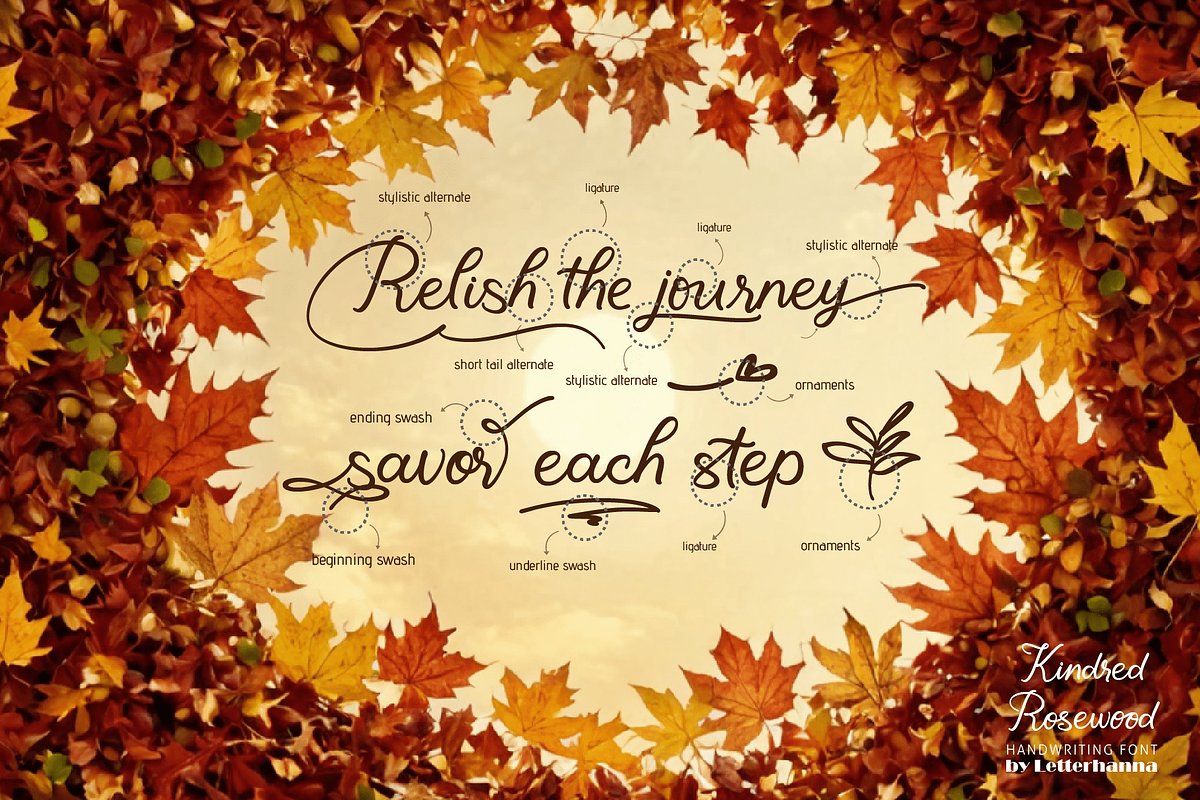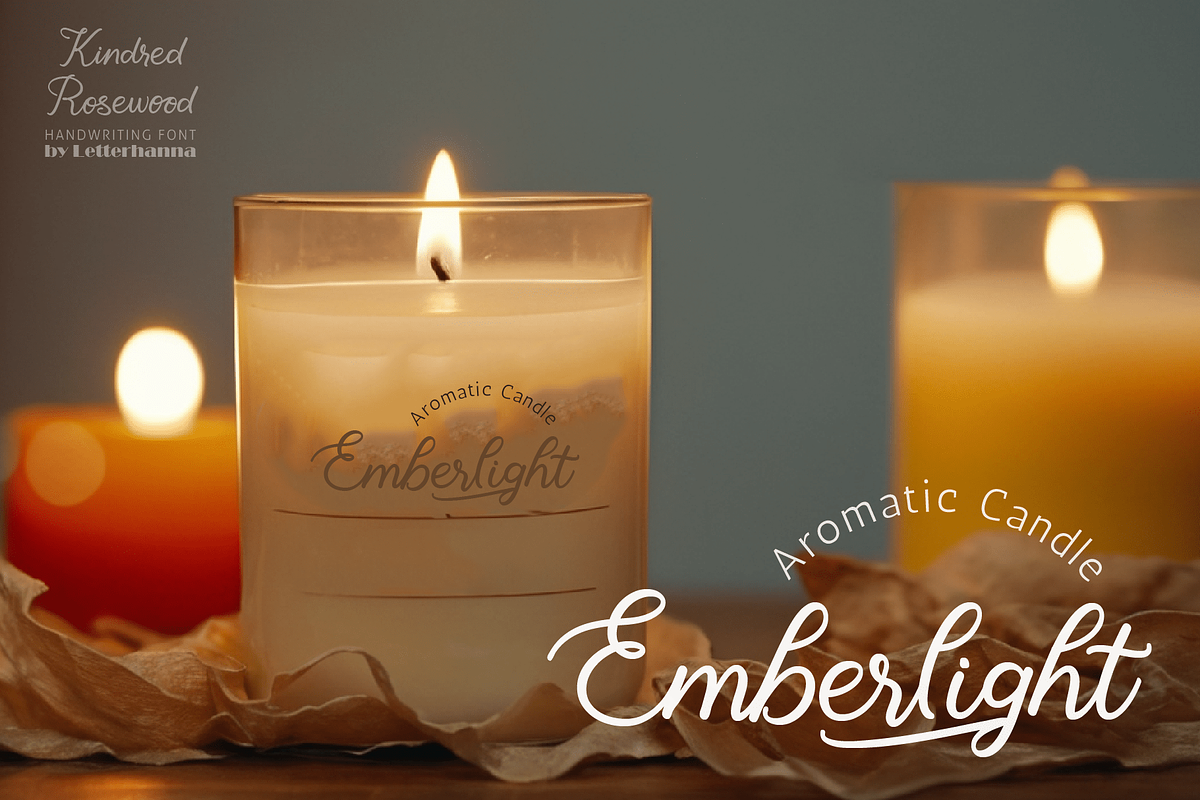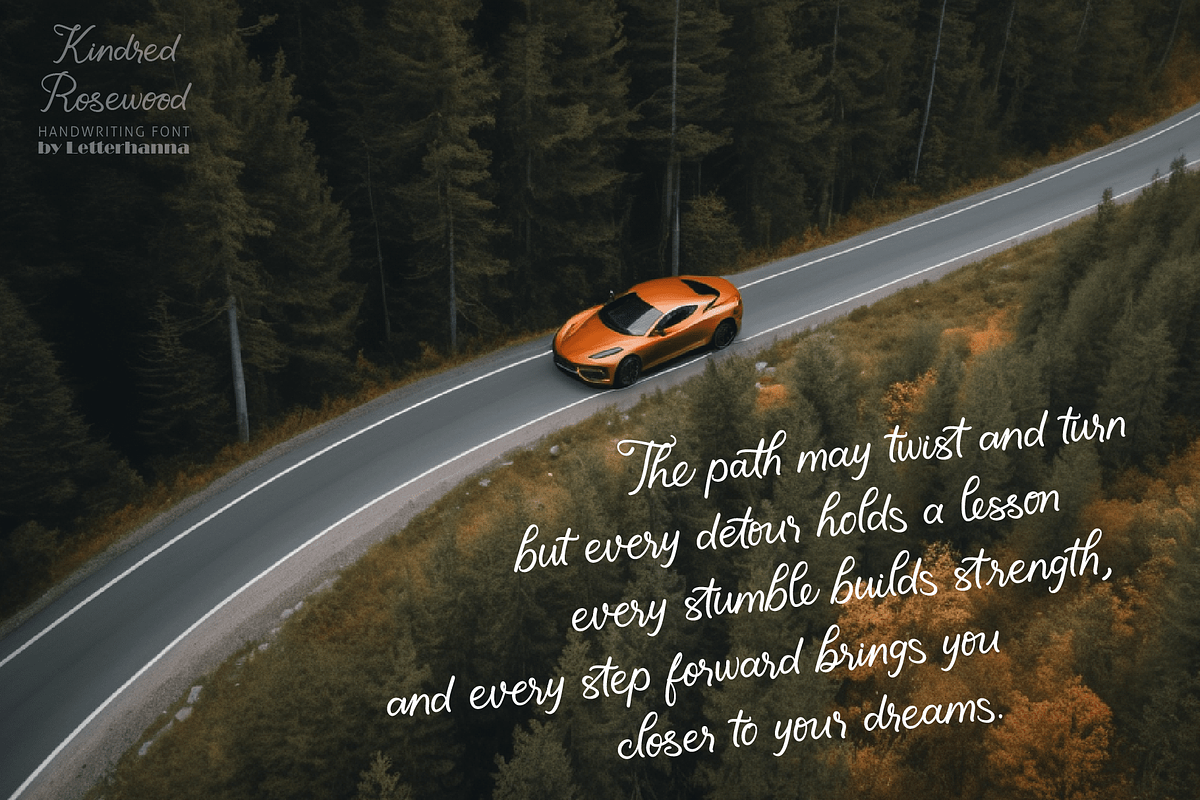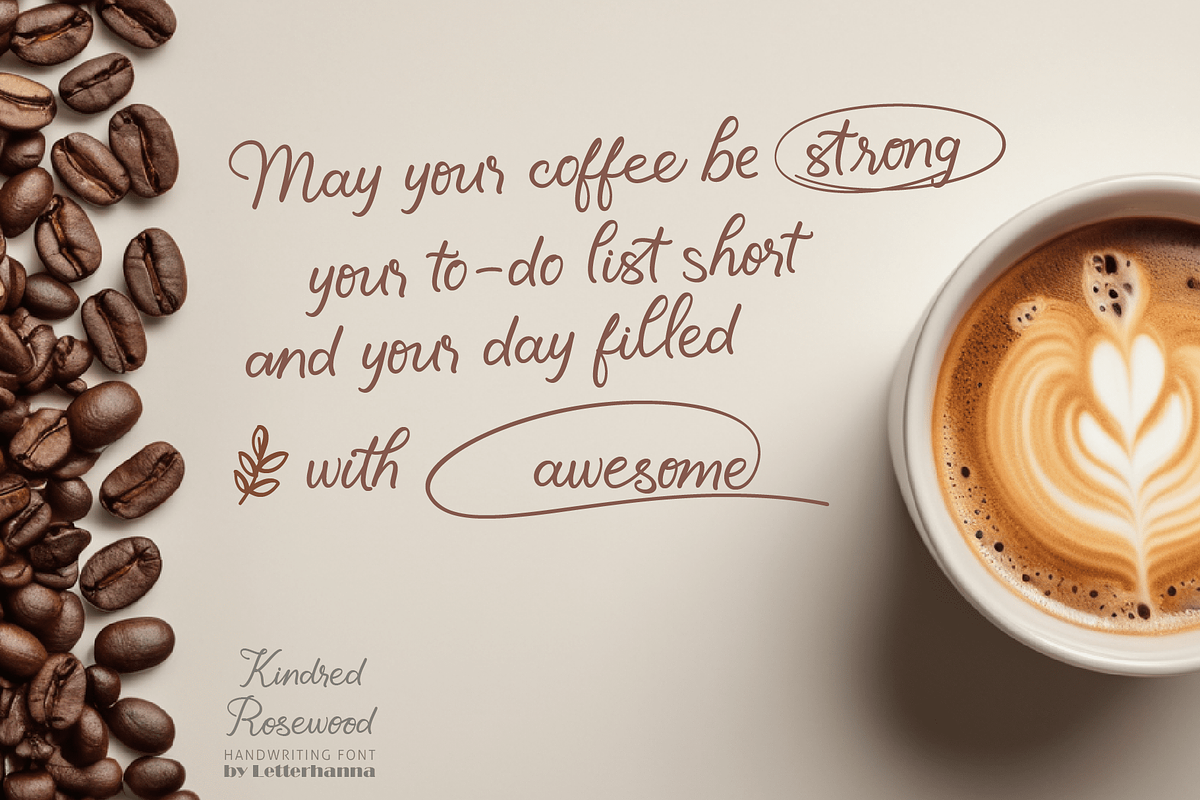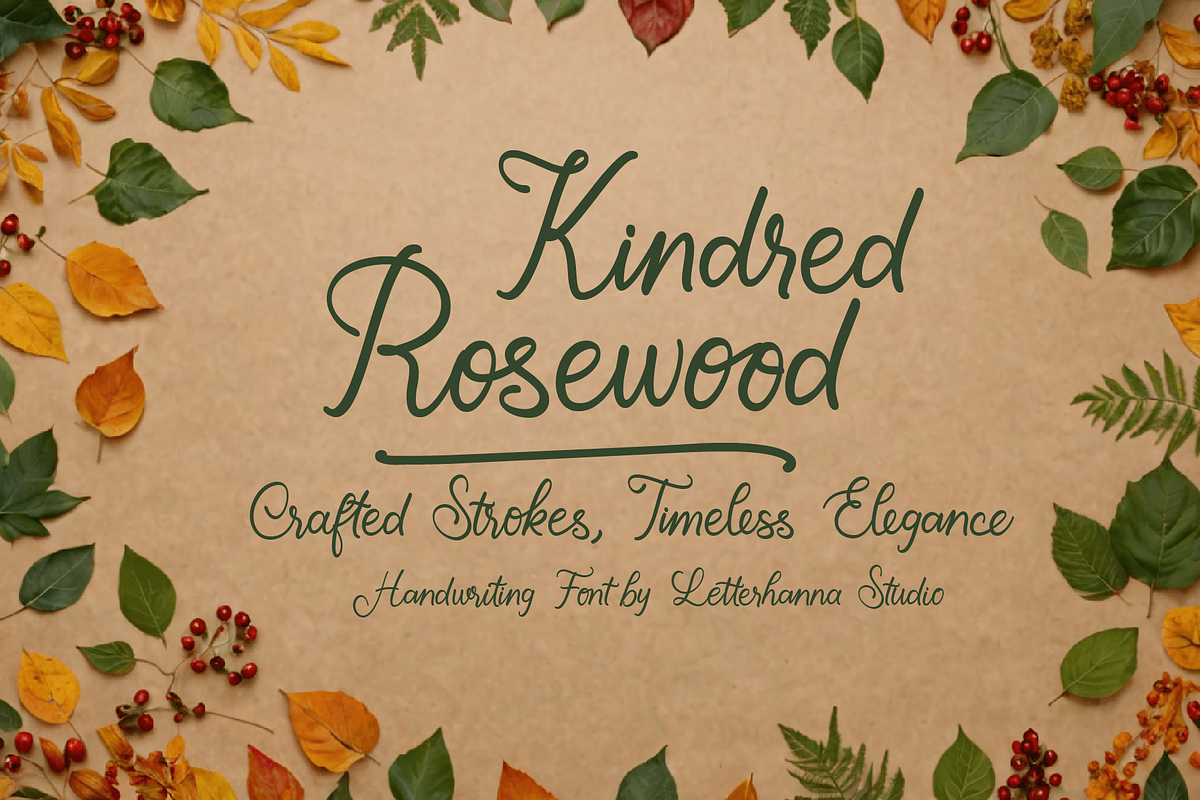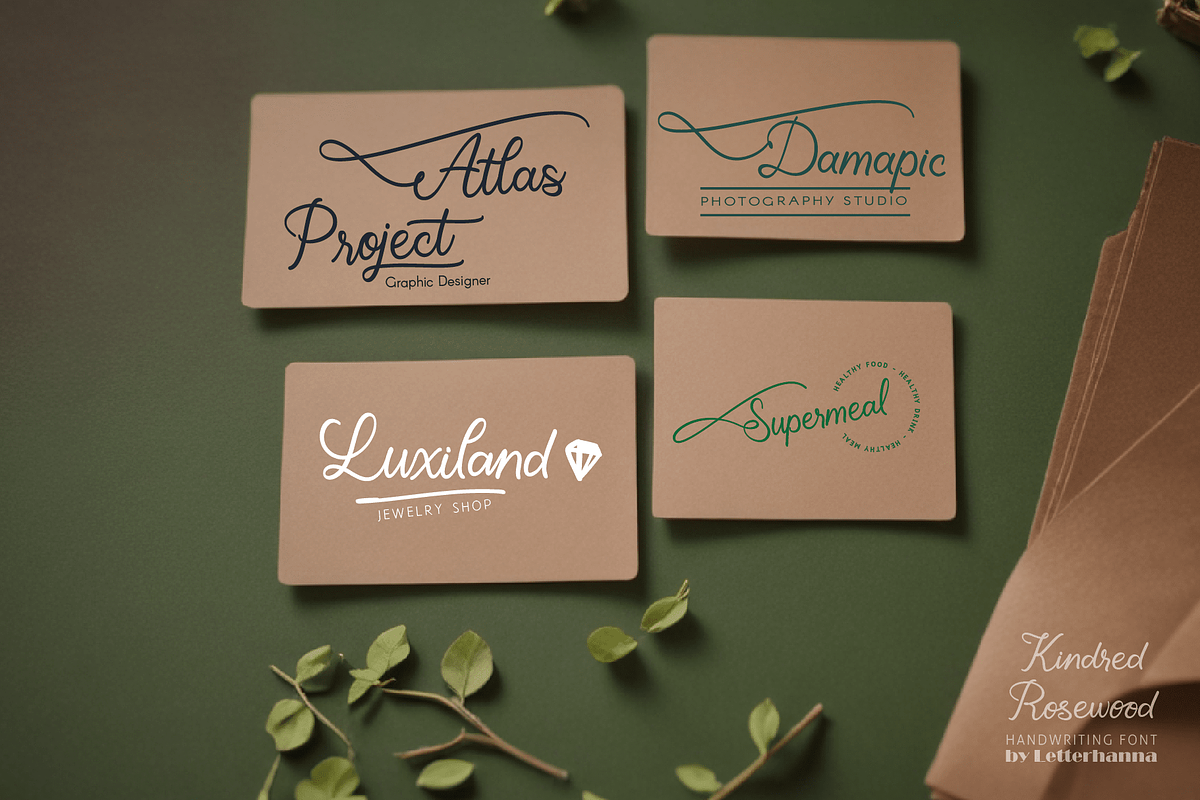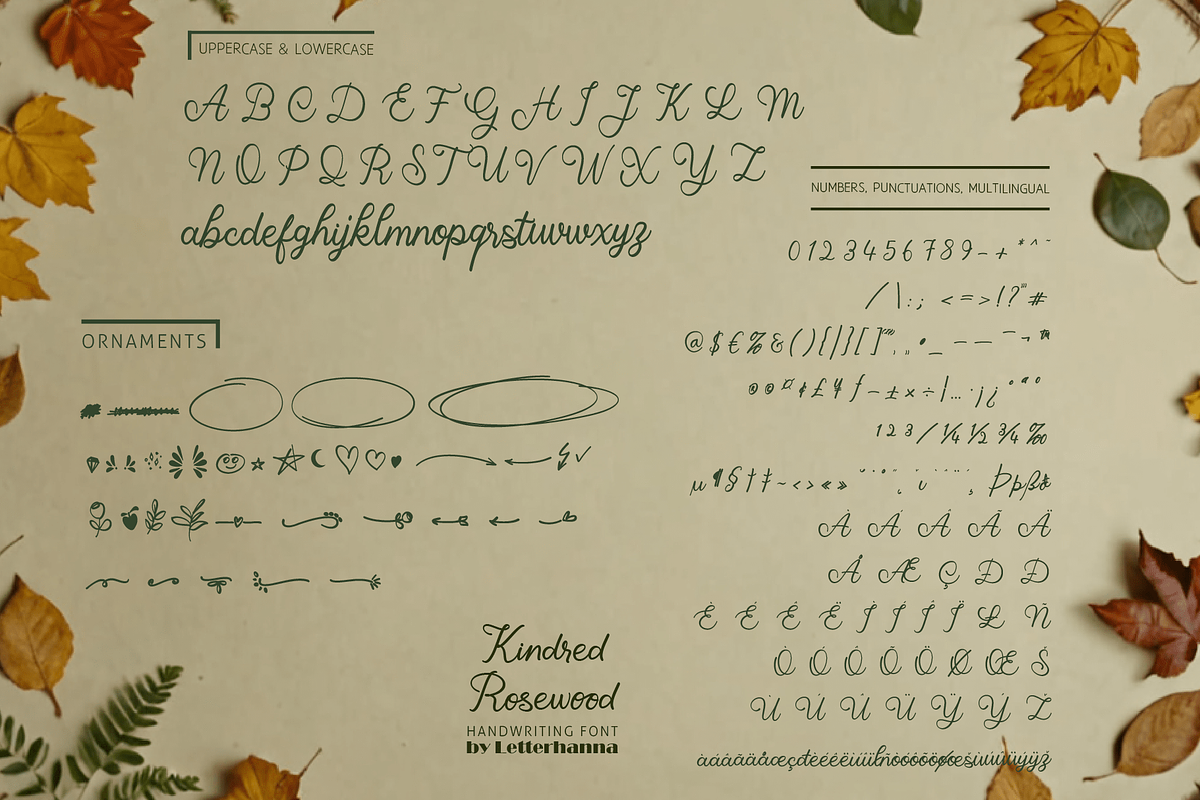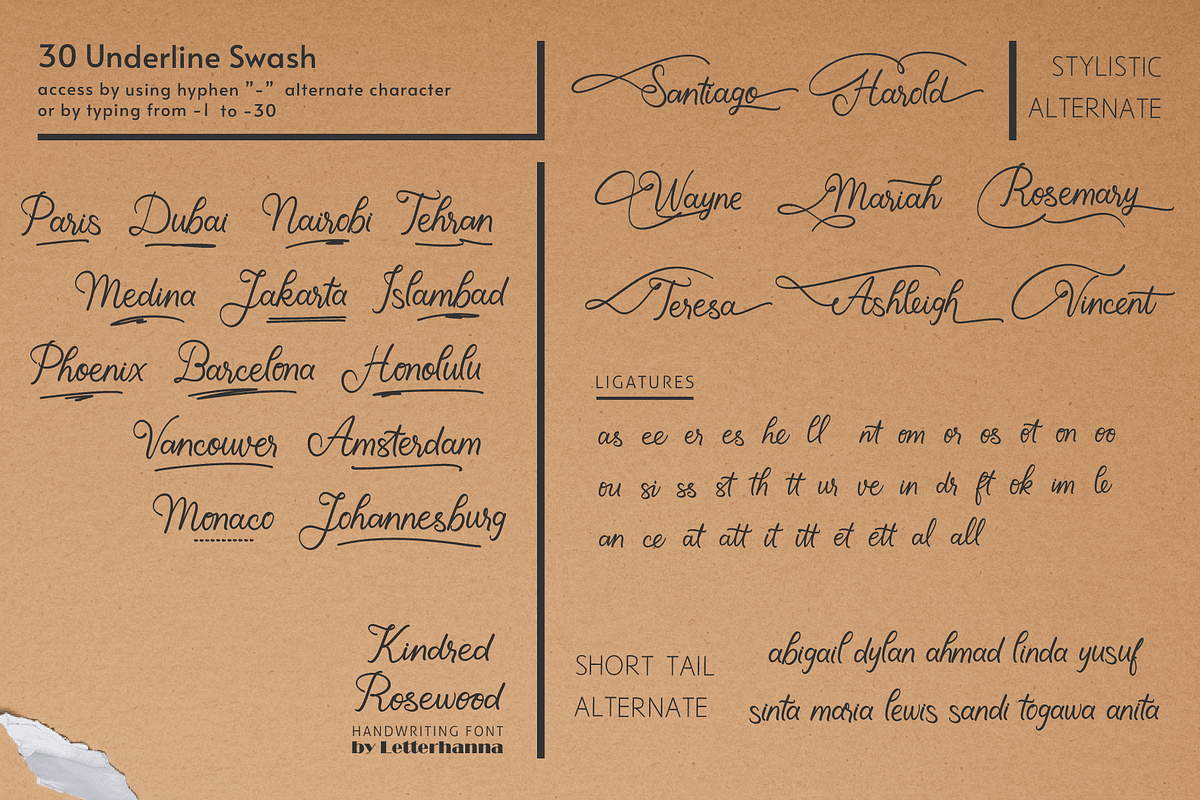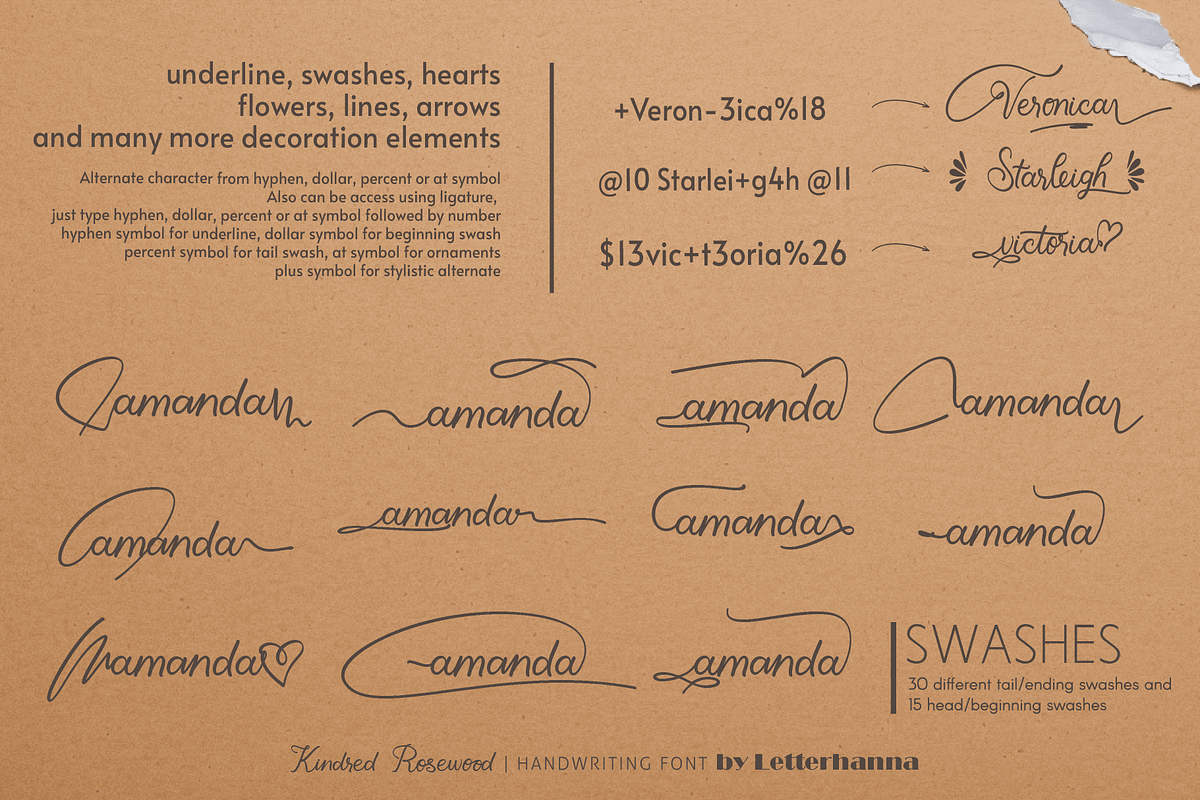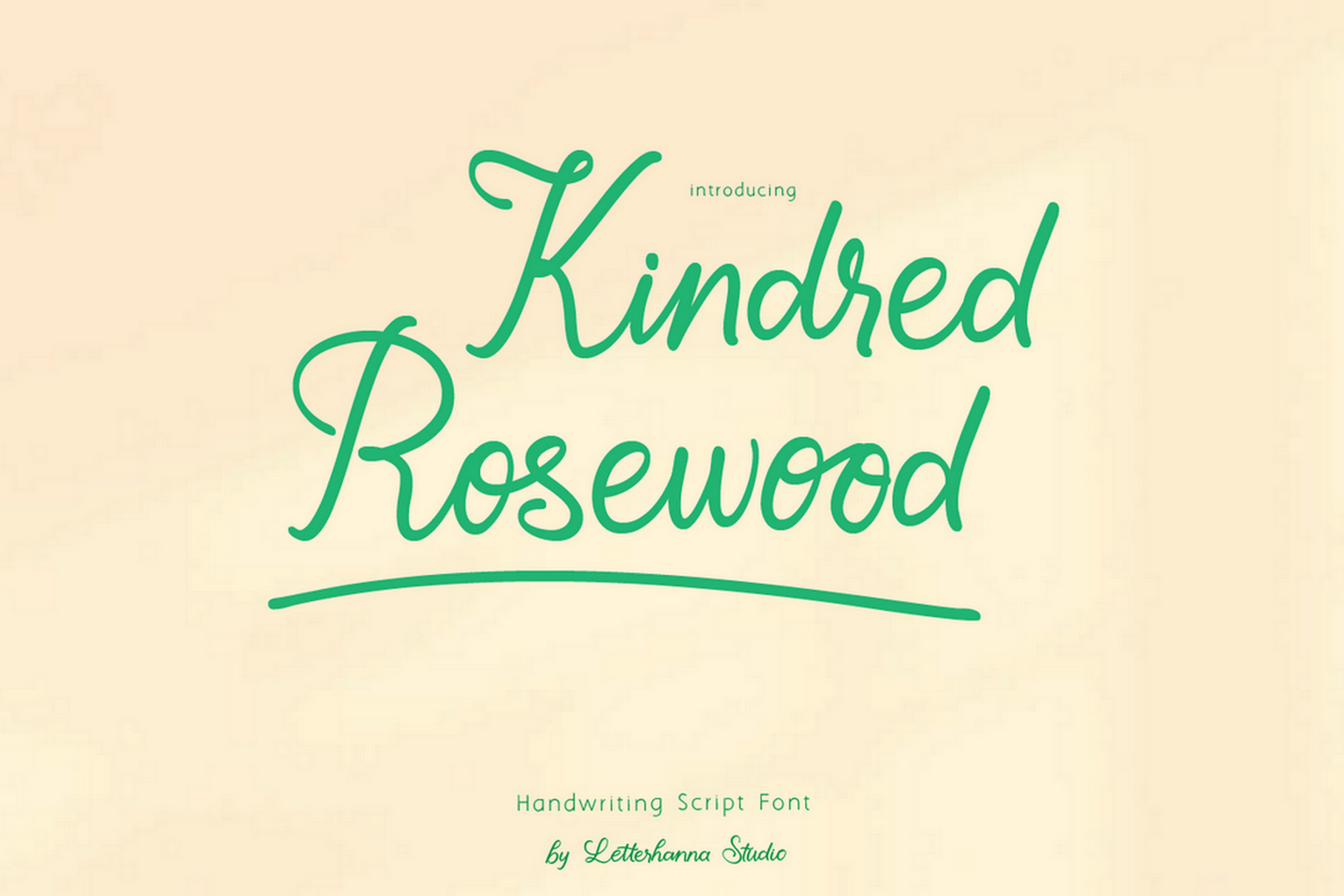
Kindred Rosewood Font
Kindred Rosewood is a beautiful new handwriting script font that combines organic, flowing letterforms with a touch of elegance. Its curves and strokes evoke a warm, natural feeling, making it perfect for a wide range of creative projects, from branding and logos to invitations and quotes. The font’s unique balance of readability and artistic flair gives it a sophisticated yet approachable look, ideal for adding personality to designs while maintaining clarity. Whether used for modern designs or vintage-inspired projects, Kindred Rosewood brings a timeless charm with a contemporary twist.
Easy Access to Glyphs and Swashes
Gain easy access to all alternate glyphs, swashes, ornaments, and underlines by simply using ligatures. You can try them out yourself in the font preview tool on our website, letterhanna.com.
Accessing Swashes and Ornaments
Underline Swashes: Use a hyphen symbol "-" followed by a number between 1 and 30. For example, type "-3", "-22", or "-17" to get various underline swashes.
Head/Beginning Swashes: Use a dollar sign "$" followed by a number between 1 and 9. For example, type "$2" or "$8" to get different head/beginning swashes.
Tail/Ending Swashes: Use a percent sign "%" followed by a number between 1 and 30. For example, type "%3" or "%15" to get various tail/ending swashes.
Ornaments: Use an "at" symbol "@" followed by a number between 1 and 26. For example, type "@4" or "@13" to get different ornaments.
PUA Encoding for Ease of Use, which means you can access all the glyphs and swashes with ease!
Uppercase and lowercase letters
Numbers and punctuation marks
Beginning and ending swashes
Underline swashes
Ornaments
Easy access to swashes using ligatures